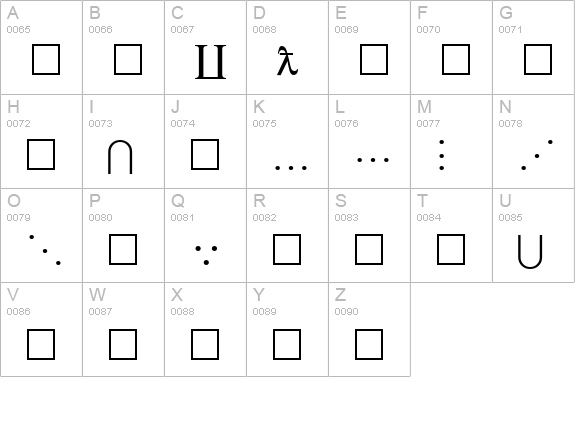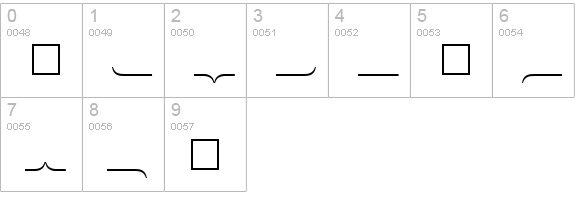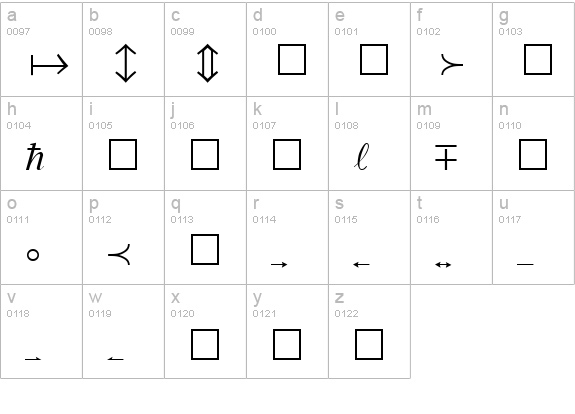
MT Extra Plain font is a versatile and eye-catching typeface that boasts a modern and clean design. With its sleek lines and geometric shapes, this font is perfect for a variety of design projects, from posters to branding materials. The simplicity of the font allows for easy readability, making it suitable for both print and digital applications. Best of all, MT Extra Plain font is available for free download at FontsMarket.com. This means that you can easily access and use this stylish font in your projects without any cost. So why wait? Add a touch of sophistication to your designs with the elegant MT Extra Plain font today!